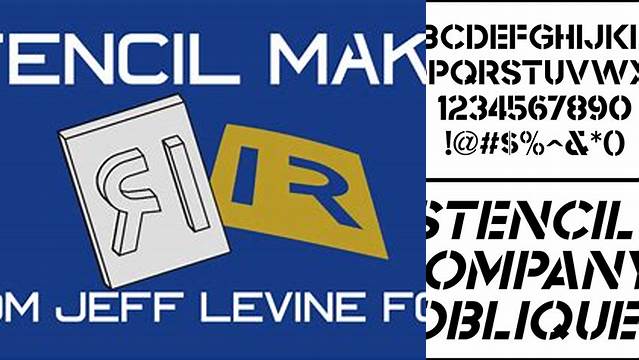
Hey guys! Are you looking for that perfect stencil font to add a touch of vintage flair to your projects? Look no further! In this comprehensive guide, we'll dive deep into the world of Stencil Maker JNL font, exploring its history, features, and, most importantly, where you can snag it for free (or explore similar options if a truly free version proves elusive). So, buckle up, typography enthusiasts, and let's get started!
What is Stencil Maker JNL Font?
Let's talk about the Stencil Maker JNL font. This font is a fantastic digital revival of classic stencil lettering styles. Designed by the talented Jeff Levine, JNL stands for Jeff and Nick Levine. This font captures the essence of vintage industrial lettering, often seen on shipping crates, military equipment, and other utilitarian objects. The design intentionally incorporates the breaks and gaps characteristic of stencil lettering, giving it an authentic and slightly distressed look. This makes it a superb choice for projects that need a touch of retro charm or an industrial vibe. Think posters, signage, branding materials, and even crafting projects. The bold, straightforward nature of Stencil Maker JNL ensures readability while maintaining a distinct visual appeal. Its clean lines and geometric shapes create a strong, eye-catching presence, perfect for headlines, titles, and short blocks of text. Beyond its aesthetic qualities, Stencil Maker JNL is a versatile font that works well in a variety of design contexts. Whether you're creating a vintage-inspired logo, designing a poster for a local event, or adding a unique touch to your website, this font can deliver the goods. Its inherent legibility makes it suitable for both print and digital applications, and its timeless appeal ensures that it won't go out of style anytime soon. The font's historical inspiration also adds a layer of authenticity to your designs. By using Stencil Maker JNL, you're not just choosing a font; you're tapping into a rich tradition of industrial and military typography. This can be particularly valuable if your project aims to evoke a sense of history or nostalgia. Plus, the slightly rough-edged appearance of the font can add character and personality to your designs, making them stand out from the crowd. In a world saturated with sleek, modern typefaces, Stencil Maker JNL offers a refreshing alternative, reminding us of a time when typography was as much about function as it was about form.
When it comes to key features and characteristics, Stencil Maker JNL font really shines. What makes it so special, you ask? Well, it's a delightful blend of functionality and aesthetic appeal, making it a go-to choice for designers and hobbyists alike. First and foremost, the defining characteristic of Stencil Maker JNL is its classic stencil design. As we mentioned, this means the font incorporates breaks and gaps in the letterforms, mimicking the look of letters cut out with a stencil. This gives it an instantly recognizable, industrial feel, perfect for projects that need a touch of vintage authenticity. The font boasts a bold and sturdy appearance, ensuring high readability even at smaller sizes. This is crucial for applications like signage and posters, where clarity is paramount. Its clean, geometric lines contribute to its legibility, making it easy on the eyes and ensuring your message comes across loud and clear. Stencil Maker JNL also has a unique visual texture. The intentional gaps and breaks in the letters add a subtle roughness, preventing the font from looking too polished or sterile. This texture gives it a handmade, almost tactile quality, which can be incredibly appealing in certain design contexts. The font's versatility is another key feature. It's not just for industrial-themed projects; it can be adapted to suit a wide range of styles and applications. From vintage posters to modern logos, Stencil Maker JNL can hold its own. Its boldness makes it an excellent choice for headlines and titles, while its clear letterforms ensure it works well for shorter blocks of text. Furthermore, the character set of Stencil Maker JNL typically includes uppercase letters, numerals, and punctuation marks. This provides you with all the essential tools for creating compelling designs. Some versions may also include additional glyphs or alternative characters, expanding your creative possibilities. The spacing and kerning of Stencil Maker JNL are carefully crafted to ensure a balanced and harmonious appearance. This attention to detail contributes to the font's overall readability and visual appeal. Even the gaps in the letters are strategically placed to maintain the integrity of the letterforms and prevent them from looking disjointed. In essence, Stencil Maker JNL is a font that combines classic stencil aesthetics with modern design principles. Its bold, legible letterforms, unique texture, and versatility make it a valuable addition to any designer's toolkit.
Conclusion: Embracing the Stencil Maker JNL Font Aesthetic
So there you have it, folks! We've journeyed through the world of Stencil Maker JNL font, exploring its history, features, availability, and a plethora of ways to use it in your designs. By now, you should have a solid understanding of what makes this font so special and how it can bring a unique touch to your creative projects. The Stencil Maker JNL font truly is a gem for designers and hobbyists alike. Its vintage-inspired, industrial aesthetic offers a refreshing alternative to more modern typefaces, allowing you to create designs that stand out and tell a story. Whether you're crafting a logo for a brewery, designing a poster for a vintage car show, or adding a touch of rustic charm to your packaging, Stencil Maker JNL can deliver the goods. Remember, the key to using any font effectively is to understand its character and how it aligns with your project's overall message. Stencil Maker JNL's bold, straightforward nature makes it ideal for headlines and titles, while its slightly distressed appearance adds a touch of authenticity. When pairing it with other fonts, consider using sans-serif typefaces for a clean contrast or script fonts for a vintage feel. While finding a completely free version of Stencil Maker JNL might be a challenge, there are several affordable options available, including font bundles and subscription services. You can also explore free stencil fonts as alternatives, but always be mindful of licensing restrictions. By purchasing a font license, you're supporting the designer's work and ensuring that you're using the font legally. And don't forget, ethical font usage is crucial for maintaining a professional and respectful design practice. As you embark on your design journey, don't be afraid to experiment with Stencil Maker JNL and other fonts. Let your creativity flow, and have fun exploring the endless possibilities of typography. Whether you're a seasoned designer or just starting out, Stencil Maker JNL is a valuable addition to your toolkit. Its versatility and timeless appeal make it a font that you'll likely reach for time and time again. So go ahead, download Stencil Maker JNL (or a similar stencil font), and start creating something amazing! Embrace its unique aesthetic, and let it inspire you to push the boundaries of your design skills. With its distinctive character and industrial charm, Stencil Maker JNL is sure to add a touch of personality and style to any project.